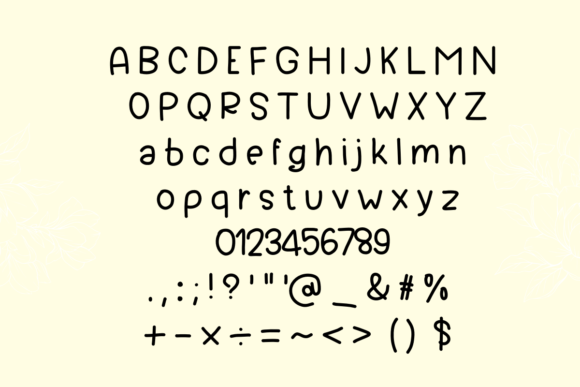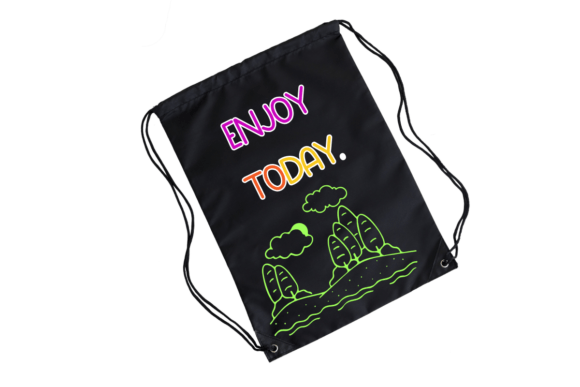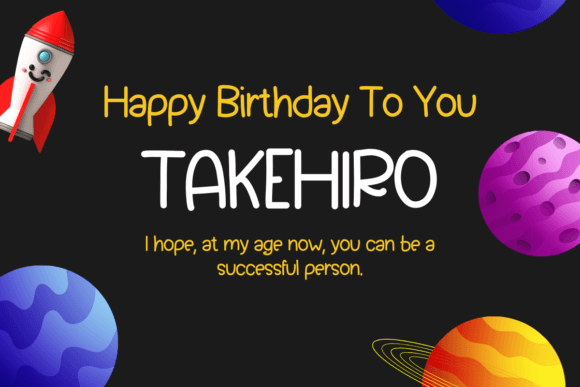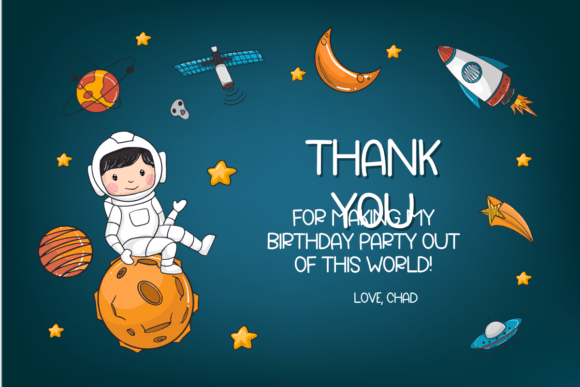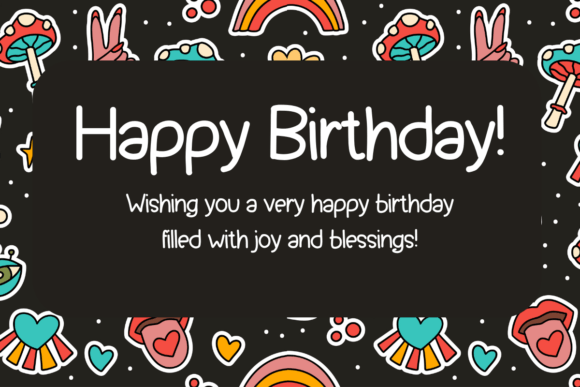
The Perfect Touch of Whimsy: Banana Font
Have you ever been stuck on a creative project, struggling to find the right font to bring your vision to life? We’ve all been there. But sometimes, all it takes is a single font to turn an idea into a masterpiece. For me, that font is Banana – a charming, handwritten script that adds a touch of warmth and personality to any design.
Whether you’re jotting down notes, writing a heartfelt letter, or creating a birthday card, Banana Font is the perfect companion. Its organic feel and playful flair make it a versatile choice for a wide range of projects, from social media posts to custom mugs and shirts.
As a designer, you know how valuable a great font can be. Banana Font is more than just a pretty face – it’s a tool that can elevate your designs and connect with your audience on a deeper level. In this article, we’ll explore the world of Banana Font and discover why it’s a must-have in every designer’s toolkit.
- Font Family: Banana Font is a custom-designed font family, specifically created for its unique and playful characteristics.
- Unique Characteristics: Banana Font features a distinctive, curved design with rounded edges, giving it a friendly and approachable feel.
- Language Support: Banana Font supports a wide range of languages, including Latin, Cyrillic, and Greek alphabets, making it suitable for multilingual applications.
Overall, I think Banana Font has some unique qualities that make it stand out, but also some limitations that prevent it from being a top choice for me. ✨
- Uniqueness: Banana Font has a distinct, playful feel that can be perfect for certain projects, like children’s books or food-related branding.
- Legibility: Despite its unusual design, the font is surprisingly legible, especially at larger sizes.
- Consistency: Banana Font’s irregular shapes can make it challenging to use consistently across different sizes, styles, or contexts.
- Limited versatility: While it excels in certain niches, Banana Font may not be the best choice for more formal or professional projects.
- Clarity at small sizes: The font’s intricate details can become distorted or difficult to read when scaled down.
While Banana Font has its strengths and can be a great addition to the right project, its limitations make it a secondary choice for me. I appreciate its uniqueness and playfulness, but I wouldn’t recommend it as a go-to font for everyday use.
Banana Font is ideal for:
- Creative projects that require a playful and eye-catching font.
- Branding and logo designs that need a unique and memorable font.
- Marketing materials that require a bold and attention-grabbing font.
Alternatives to “Banana Font” for Designers
Great Vibes is a modern, elegant script font. It’s ideal for creating a sophisticated and luxurious feel in designs such as branding, invitations, and packaging. Great Vibes is a more refined and polished alternative to Banana Font, with a more even and consistent letterform.
Comparison to Banana Font: Great Vibes has a more formal and sophisticated feel, while Banana Font is more playful and casual.
Pacifico is a beautiful, modern script font with a relaxed and casual feel. It’s perfect for creating a beachy or tropical vibe in designs such as magazines, advertising, and websites. Pacifico is similar to Banana Font in its casual and laid-back feel, but has a more refined and elegant appearance.